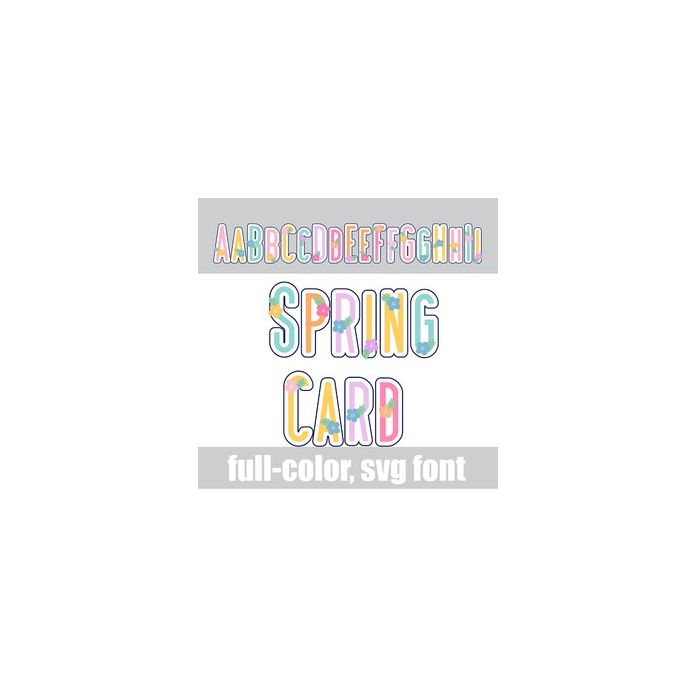
This full-color font features simple sans serif lettering and spring-colored flowers. There is an alt case w/ additional colors you can access through your system or Silhouette's glyph map.